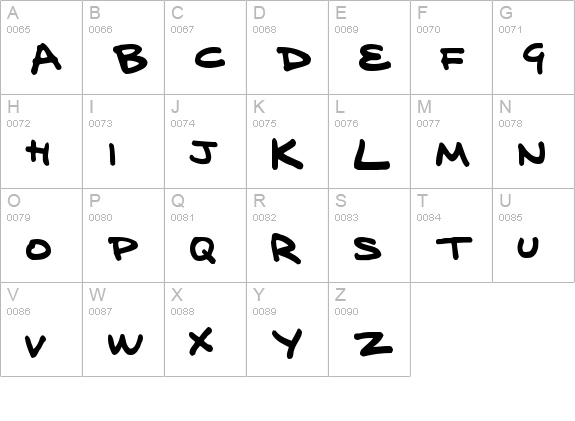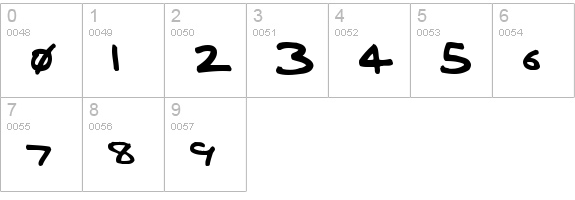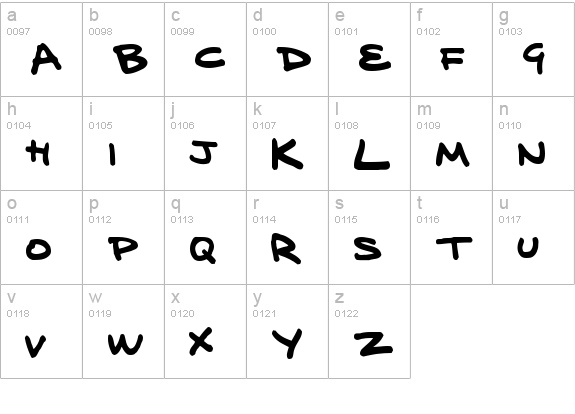
delarge marker pen Font Details
The Delarge Marker Pen Font is a bold and expressive typeface designed to make a statement. With its thick strokes and unique style, this font is perfect for adding a touch of creativity to your designs. Whether you're working on posters, social media graphics, or branding materials, the Delarge Marker Pen Font will help your text stand out and grab attention. The best part? This font is completely free to download at FontsMarket.com. You can easily access this versatile and eye-catching font to elevate your projects without breaking the bank. Don't miss out on the opportunity to add the Delarge Marker Pen Font to your font collection today!